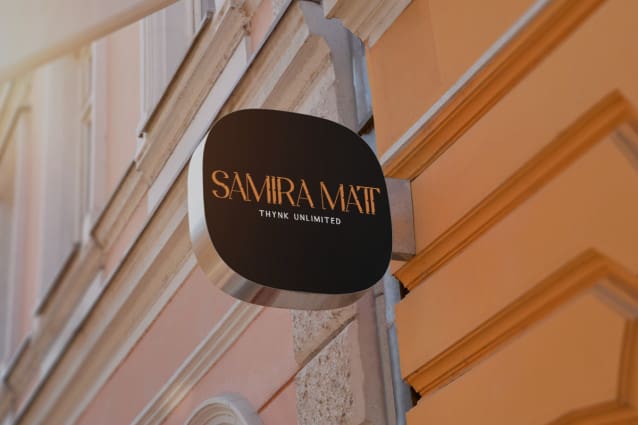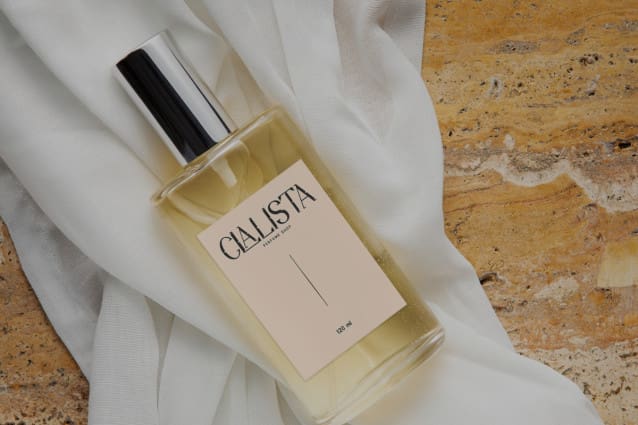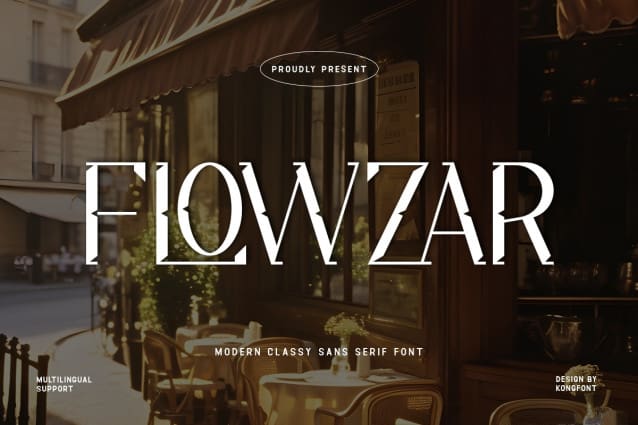
Flowzar Font
Flowzar Font – Modern Classy Unique Sans Serif Font is made to present a simple and classic impression to anyone who sees it. This is in line with the characteristics of the letters in Flowzar Font – Modern Classy Unique Sans Serif Font which are very clean without unnecessary knick-knacks in each letter. This font stands tall and exudes a confident vibe. People who read various texts using this type of font don’t need to bother to be able to read and understand this font, in other words, Flowzar Font – Modern Classy Unique Sans Serif Font is legible.
As the name implies, Flowzar Font – Modern Classy Unique Sans Serif Font is perfect for use as a wedding font. Those who like simple but still aesthetic letters will choose this letter. Classic and classy impressions can be used for wedding invitations, posters, and souvenirs. This font can be printed in small or large and still looks great from close up or afar. This font can be used for magazine covers and reading books.
Not only that, Flowzar Font – Modern Classy Unique Sans Serif Font can be used as a digital font. It can be a title in a video intro and an acknowledgment in an outro. This font is suitable for product branding. It can be a product brand tag and advertising poster. This font can also be used as a business card.